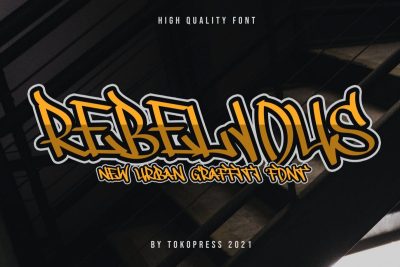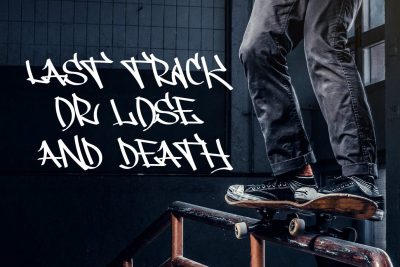
Graffiti font rebelious, the new urban graffiti font by Tokopress, brings bold, powerful street style to your digital toolbox. With edgy lines and unique letterforms, it embodies the raw energy of rebellion and urban culture. Each letter has a raw, hand-drawn look, featuring bold outlines, sharp curves, and an authentic graffiti feel. This font is a visual shout, echoing the vibrant spirit of city streets.
Not only is the rebelious graffiti font captivating, but itโs also versatile, fitting a wide range of urban-themed projects. Its thick strokes and shadow effects enhance readability, even in complex layouts. Whether for posters, album covers, or merchandise, this fontโs bold design ensures your message is clear and unmissable. Its edgy style adds a layer of rawness and authenticity, perfect for making a strong statement.
Additionally, rebelious graffiti font offers flexibility in customization. By adjusting colors, layering effects, and experimenting with backgrounds, designers can make this font unique. It adapts well to both digital and print media, retaining its impactful look across platforms. This adaptability makes it a valuable asset for projects capturing urban grit and creativity.
Graffiti Font Rebelious Ideal for
This rebeliousย is ideal for streetwear brands, music industry professionals, and designers seeking a street-smart vibe. Itโs suited for designs that resonate with young audiences who love street culture, hip-hop, and graffiti art. The fontโs edgy look works well for album covers, posters, and merchandise for those valuing individuality.
Graphic designers focused on youth-oriented branding will find it a valuable choice, especially for projects needing a grungy, streetwise aesthetic. Social media influencers and content creators can also use it for eye-catching thumbnails, stories, and posts that stand out. If you aim to capture the spirit of rebellion and urban culture, this graffiti font delivers the impact you need.
For educators and community organizers, this font adds appeal to event materials targeting a younger audience. Whether for art festivals, community gatherings, or music events, rebelious graffiti font brings excitement. Itโs a versatile font that speaks to the energy and vibrancy of the streets.